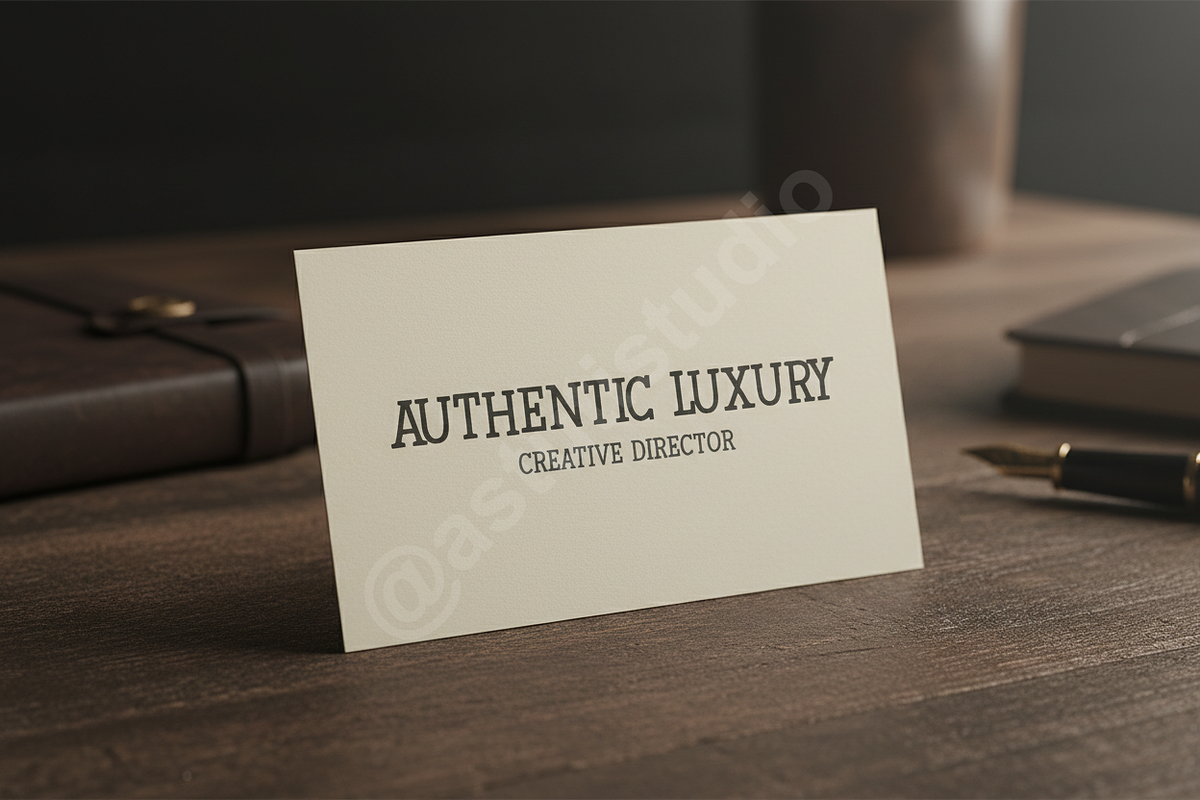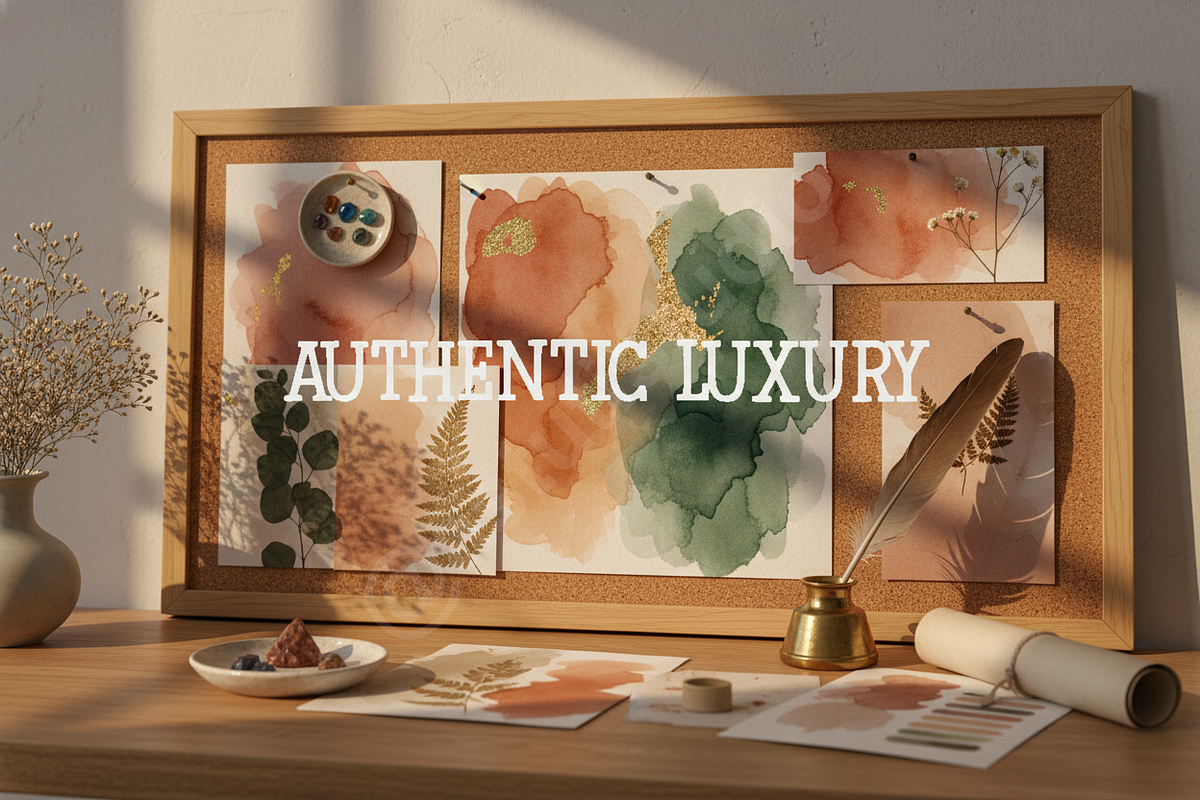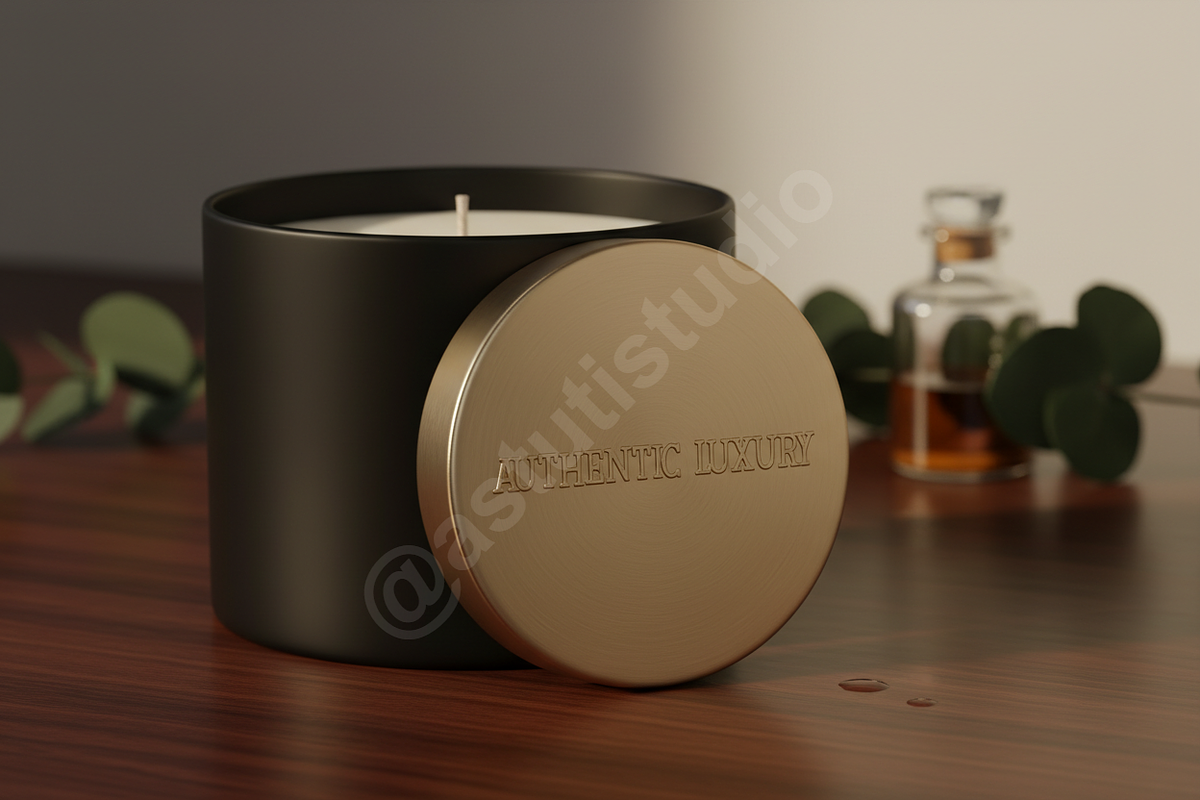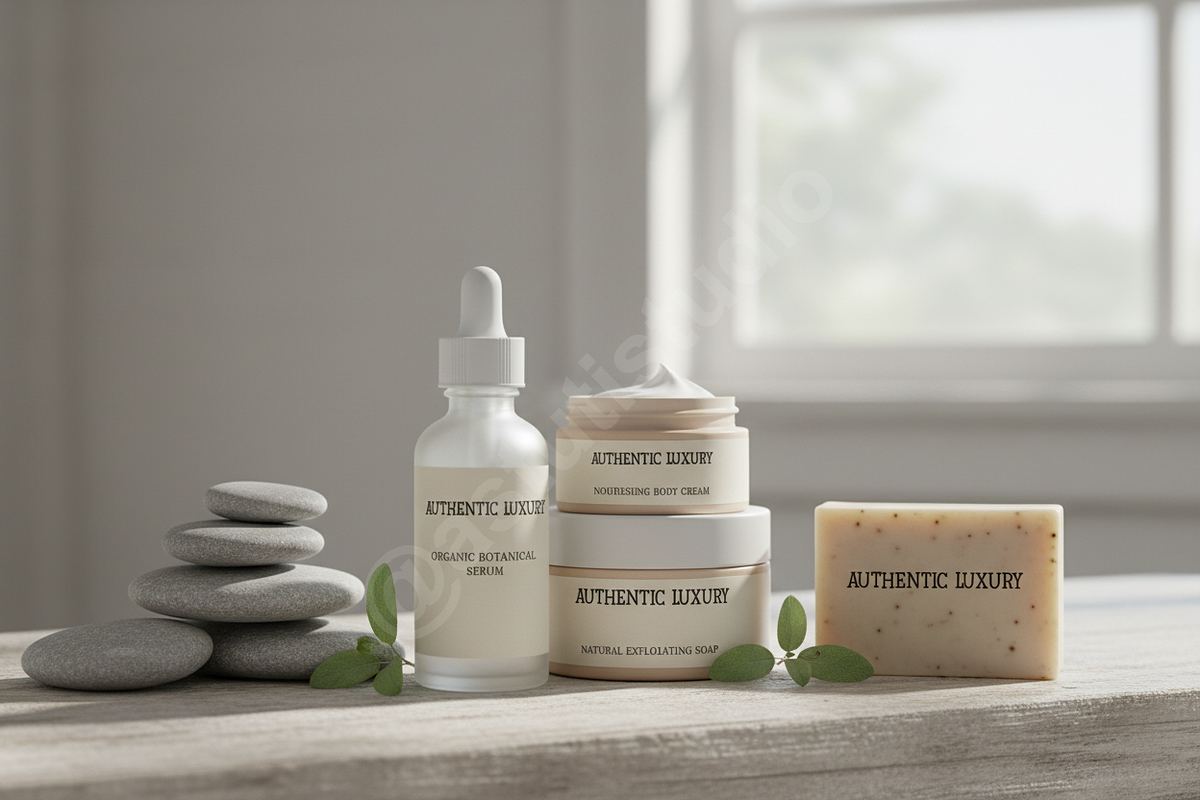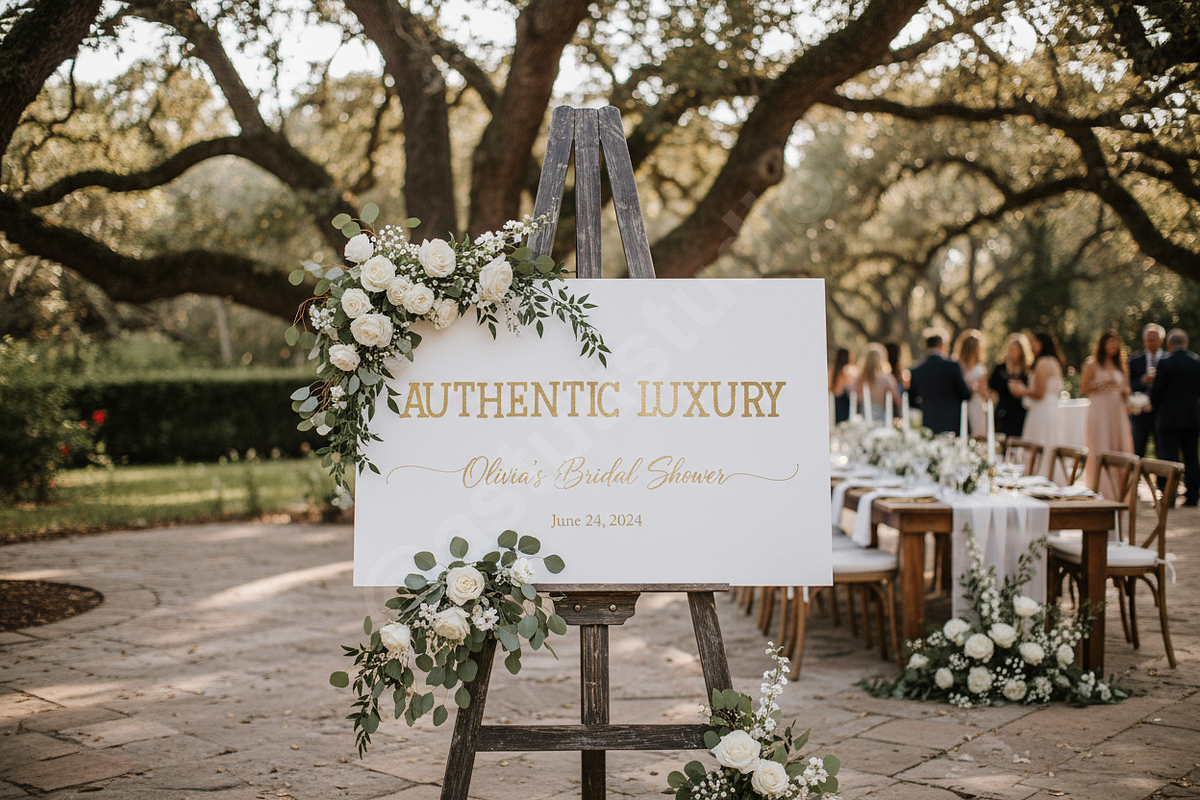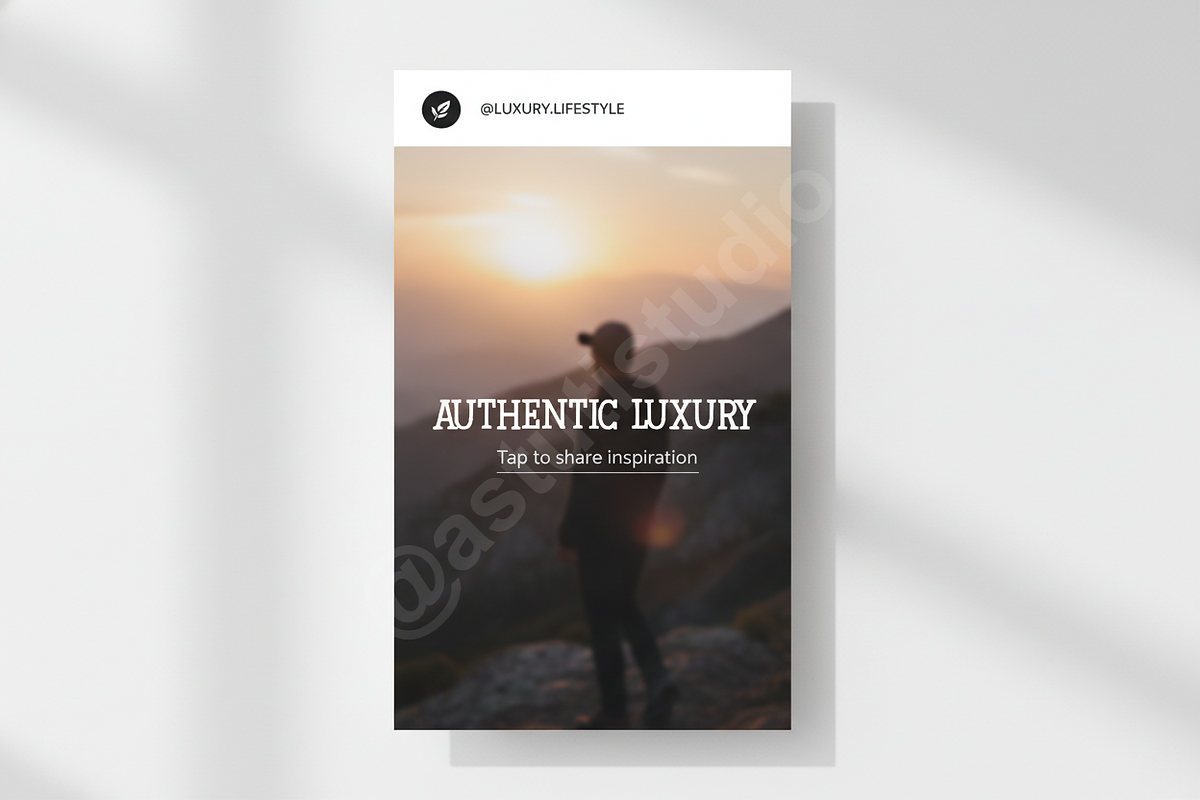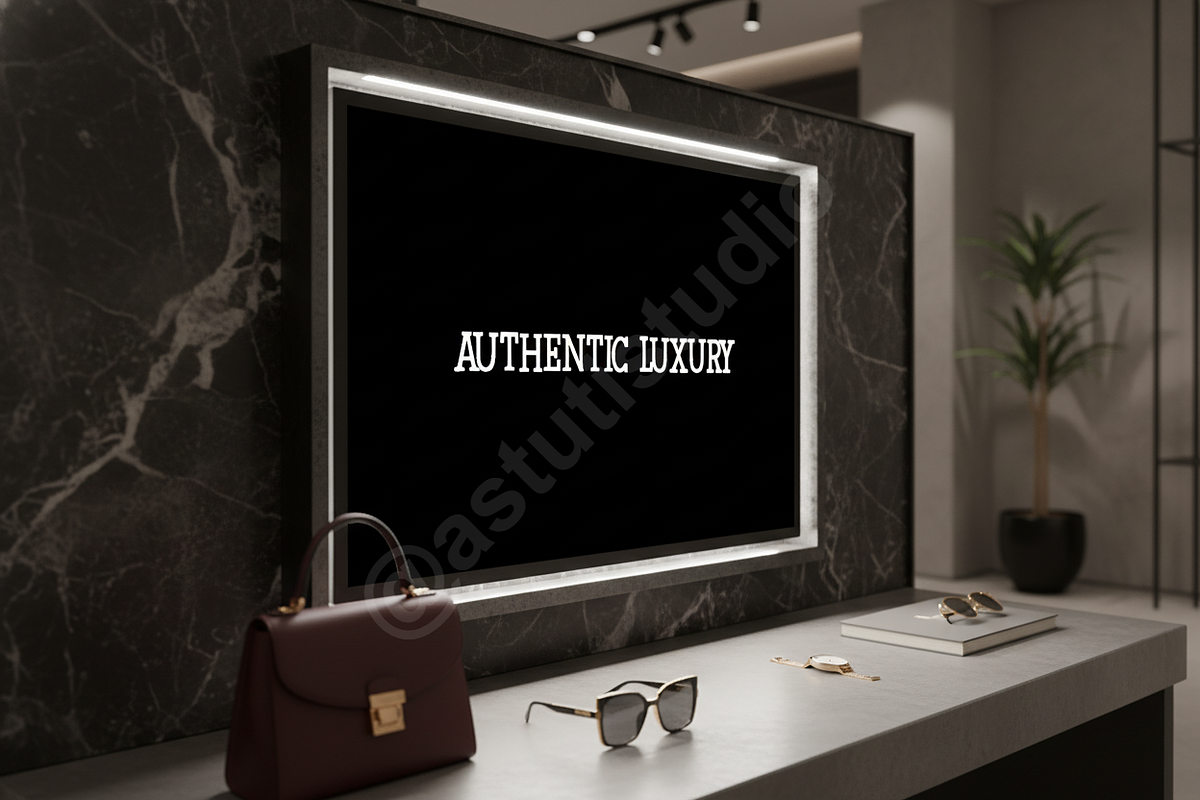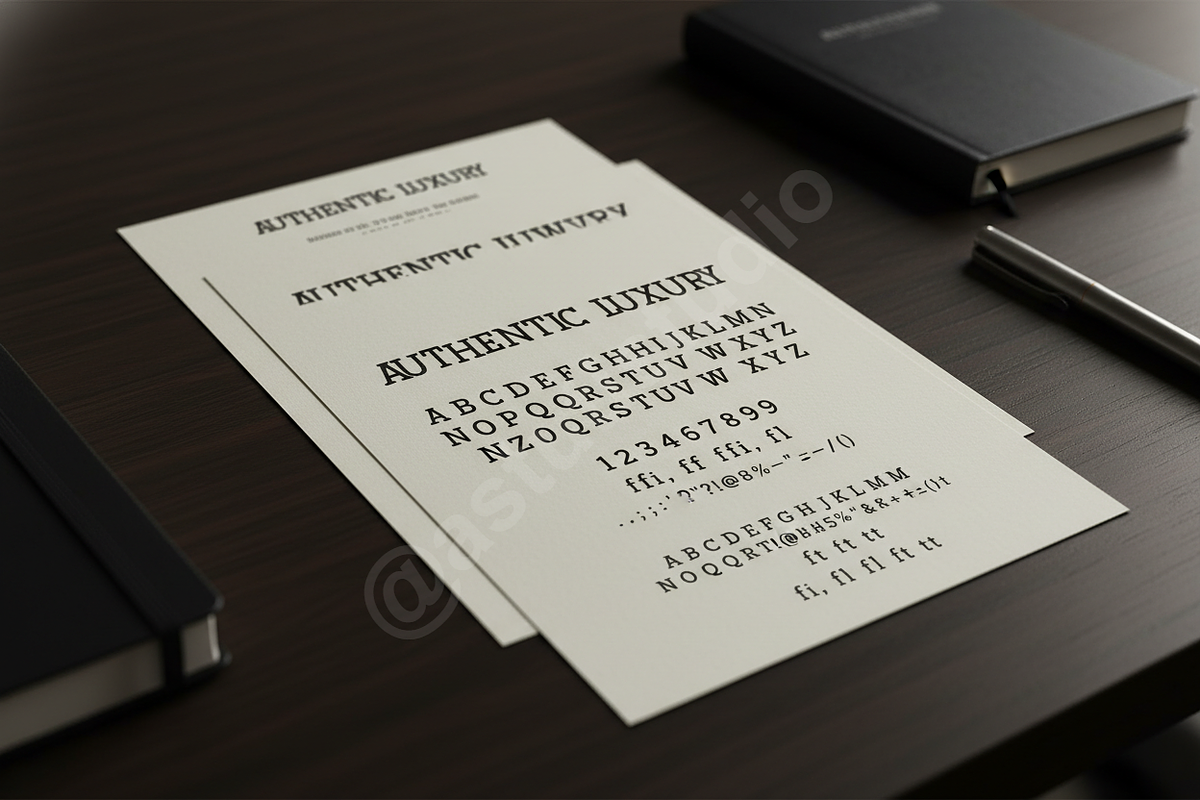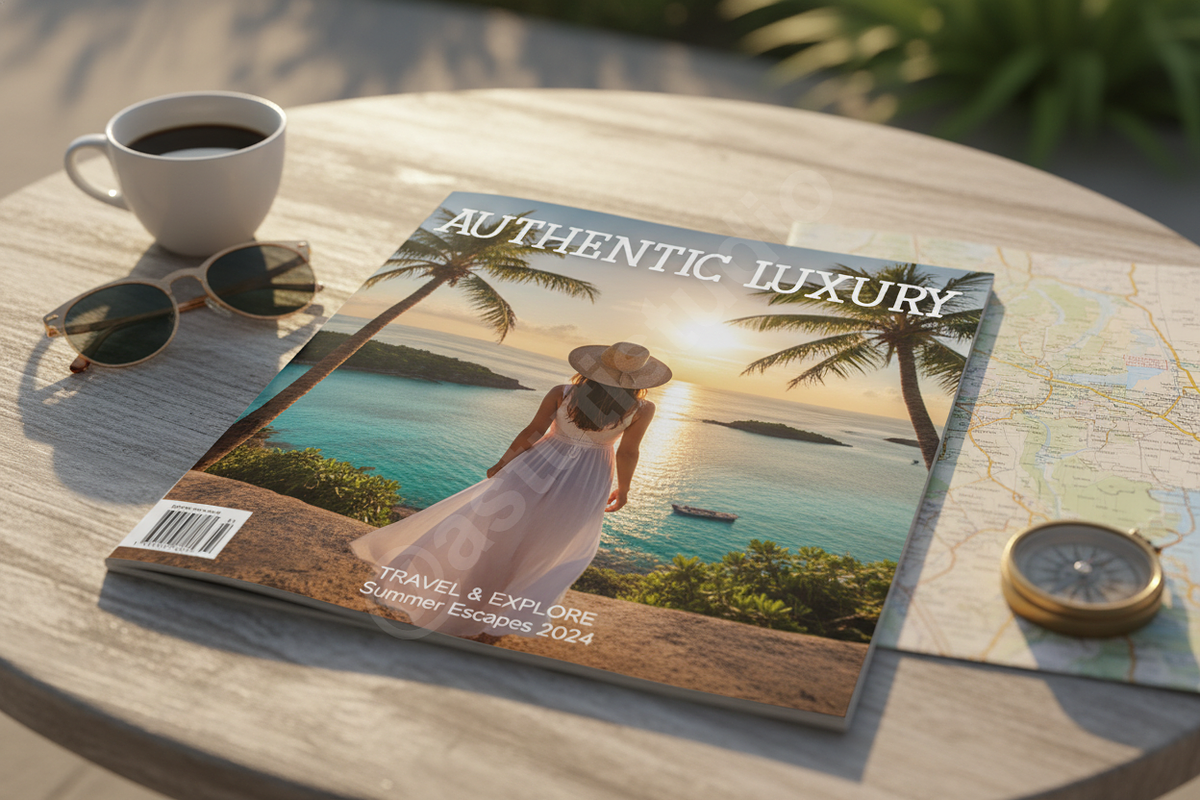
Cefagu | Elegant Luxury Display Seri
Introducing Cefagu, a typeface meticulously crafted for high-end visual communication. Cefagu blends timeless elegance with sharp contemporary detailing, making it the definitive choice for projects demanding sophistication. It exudes confidence and refinement, perfect for establishing an iconic brand identity.
Key Features: • Timeless Style: A modern serif structure optimized for luxury display settings. • Refined Aesthetics: Subtle stroke variations and balanced metrics ensure exceptional readability and visual harmony. • Versatile Weights: Includes Thin, Regular, and Bold variations to handle both high-impact headlines and supporting body text. • Editorial Ready: Exceptionally legible for magazine layouts, annual reports, and sophisticated publications. • Opentype Functionality: Full support for Ligatures, stylistic alternates, and comprehensive multilingual accents. • Ideal Applications: Luxury Branding, High-Fashion Editorial, Premium Packaging, and Sophisticated Social Media Graphics.